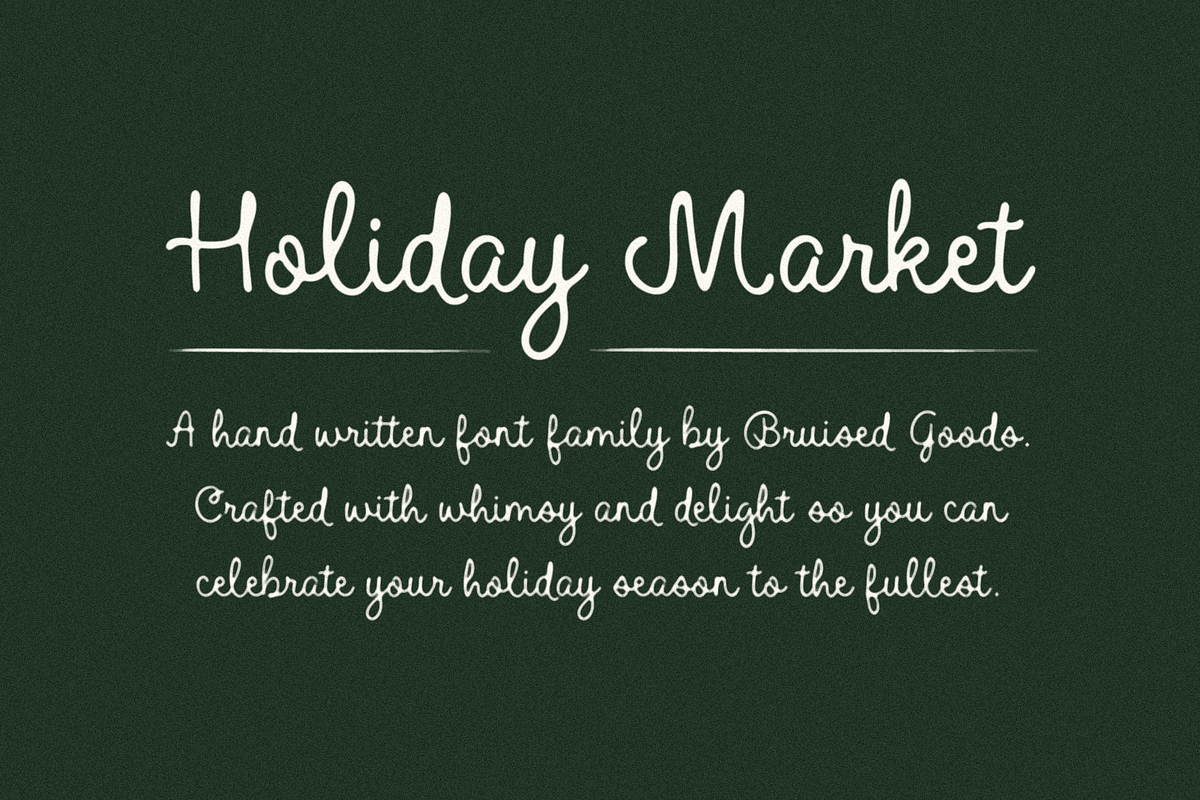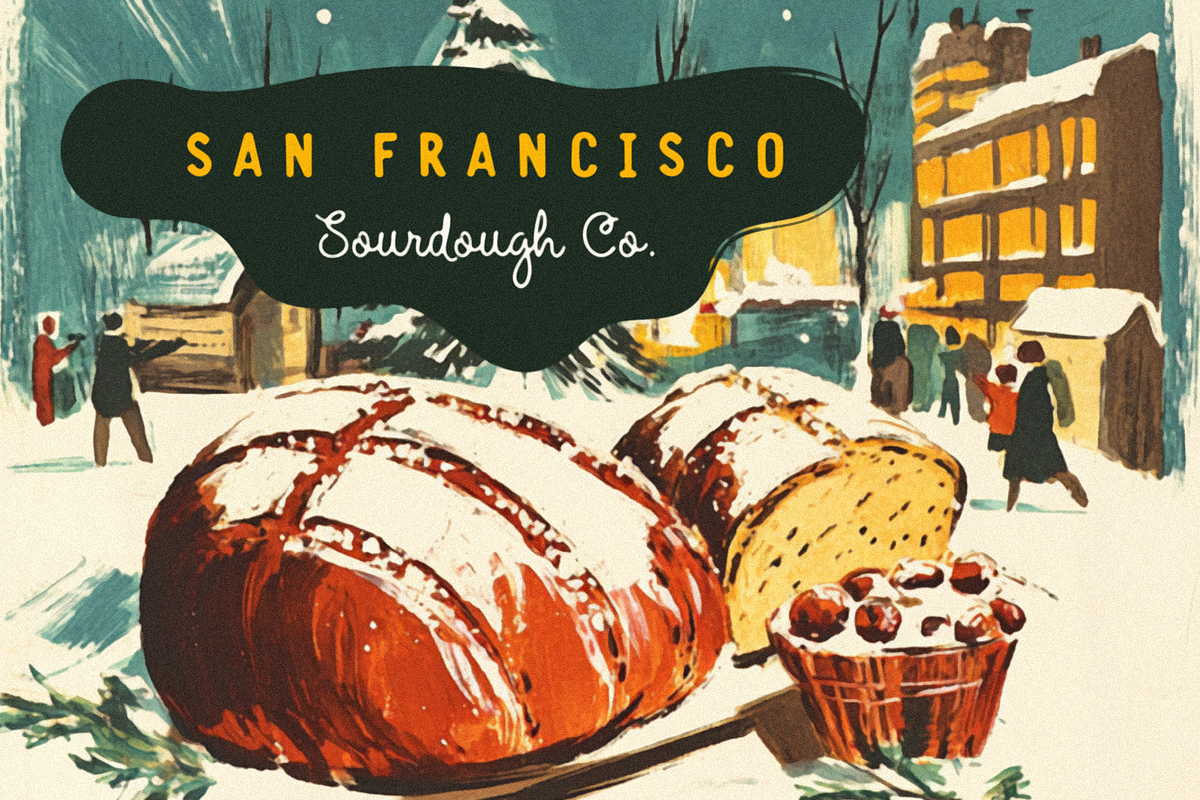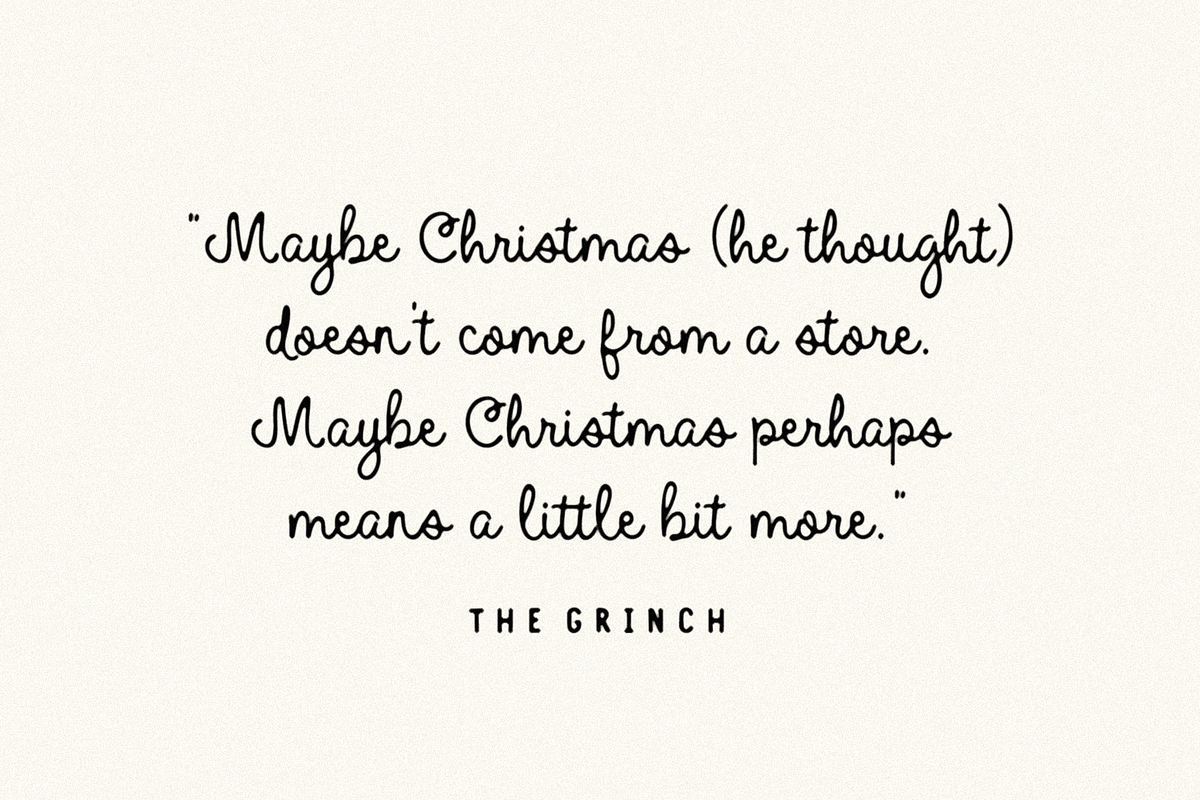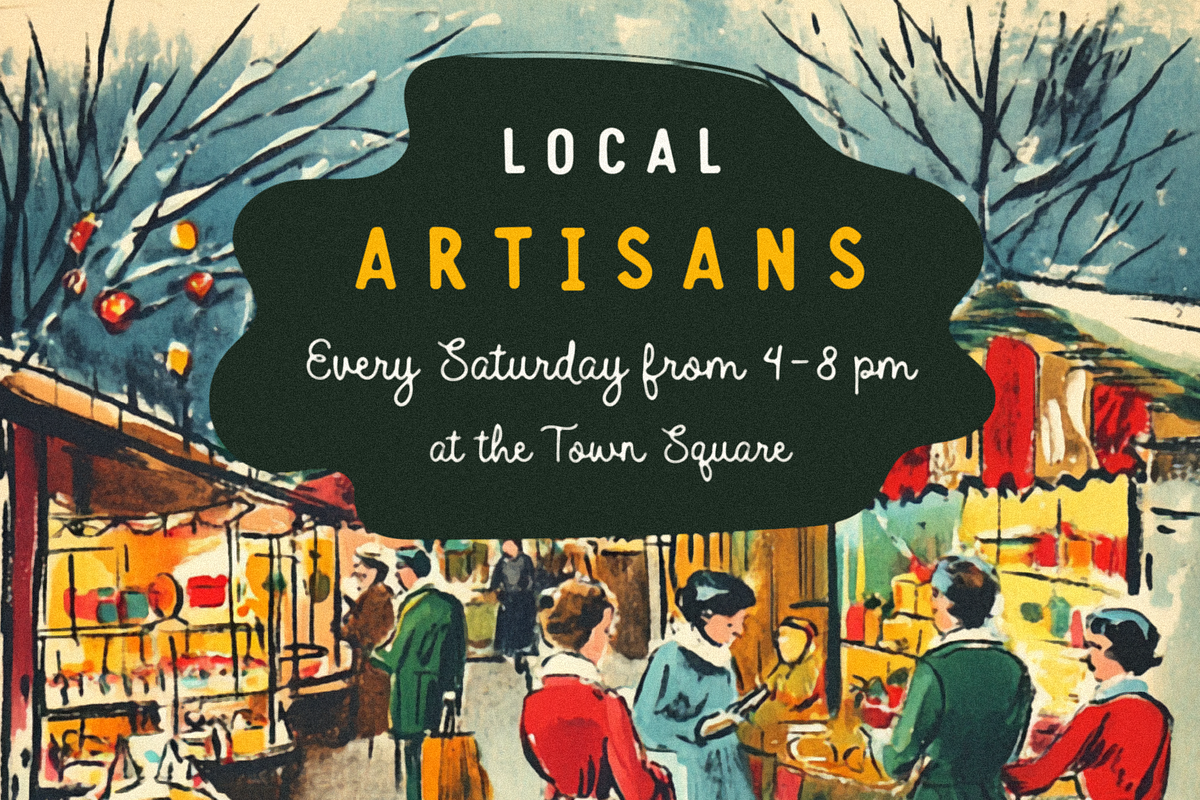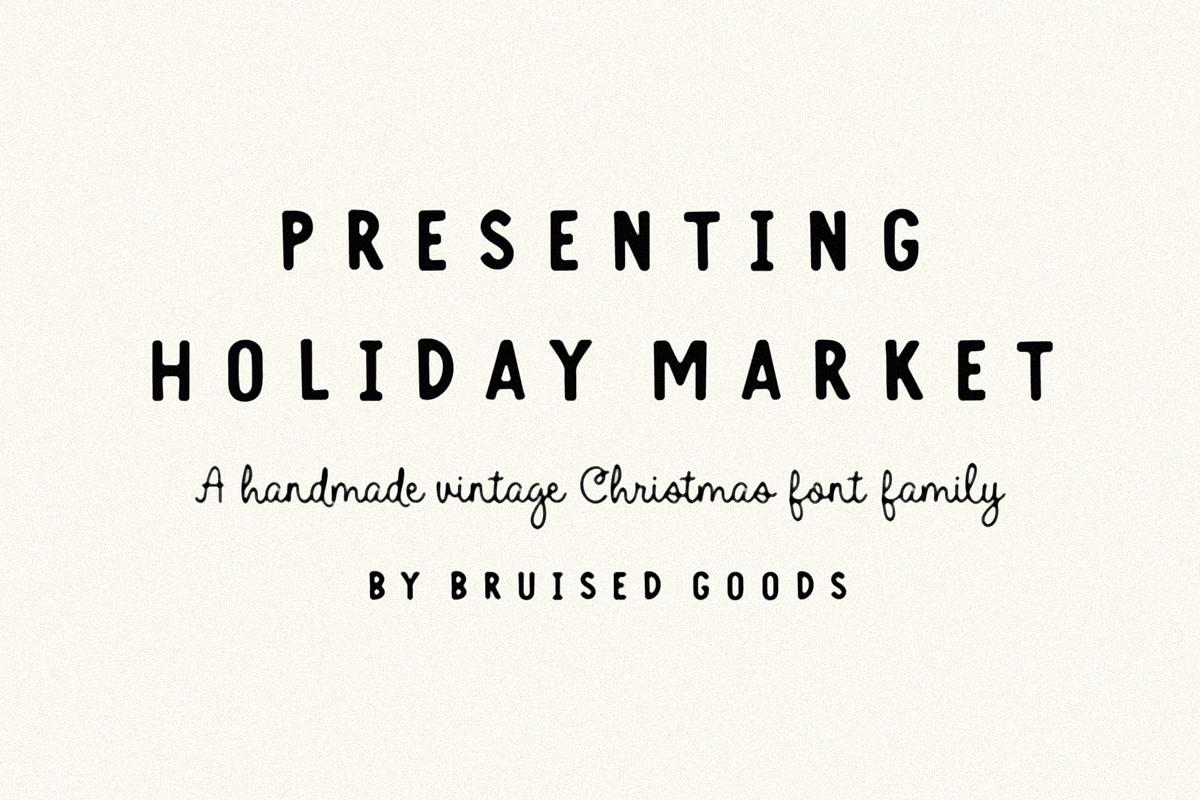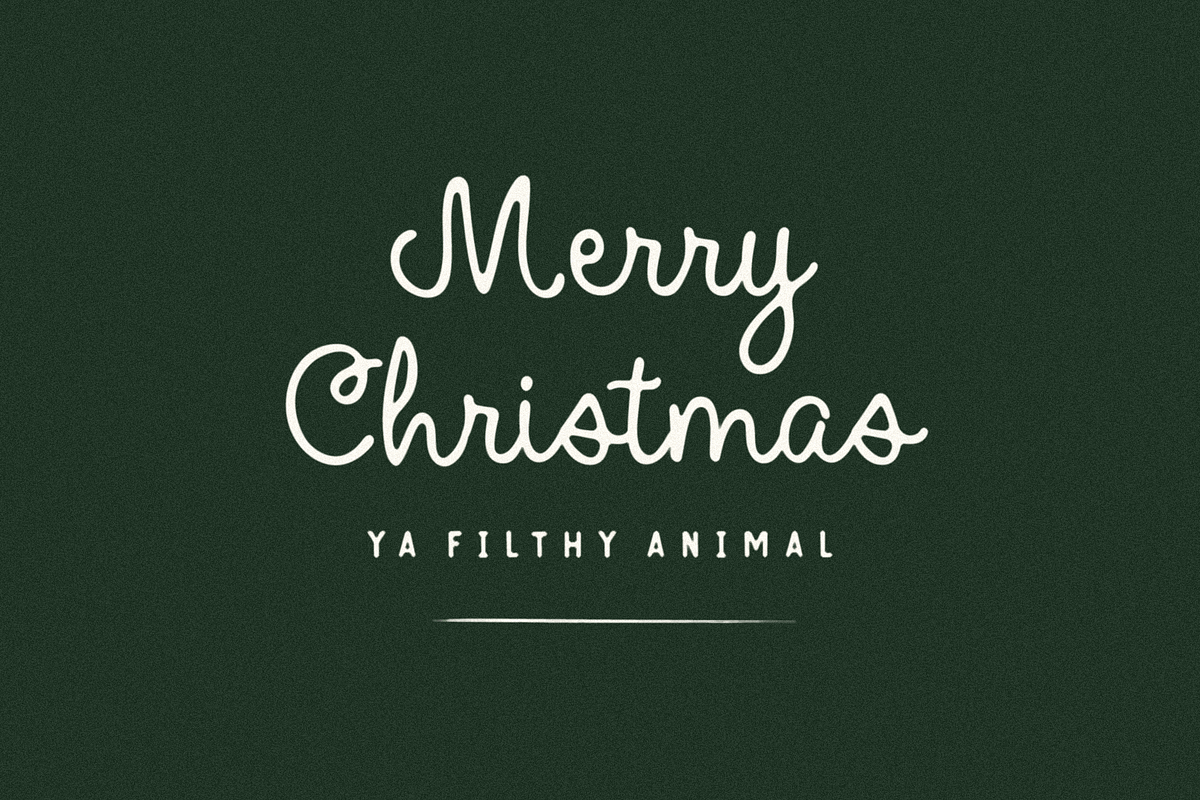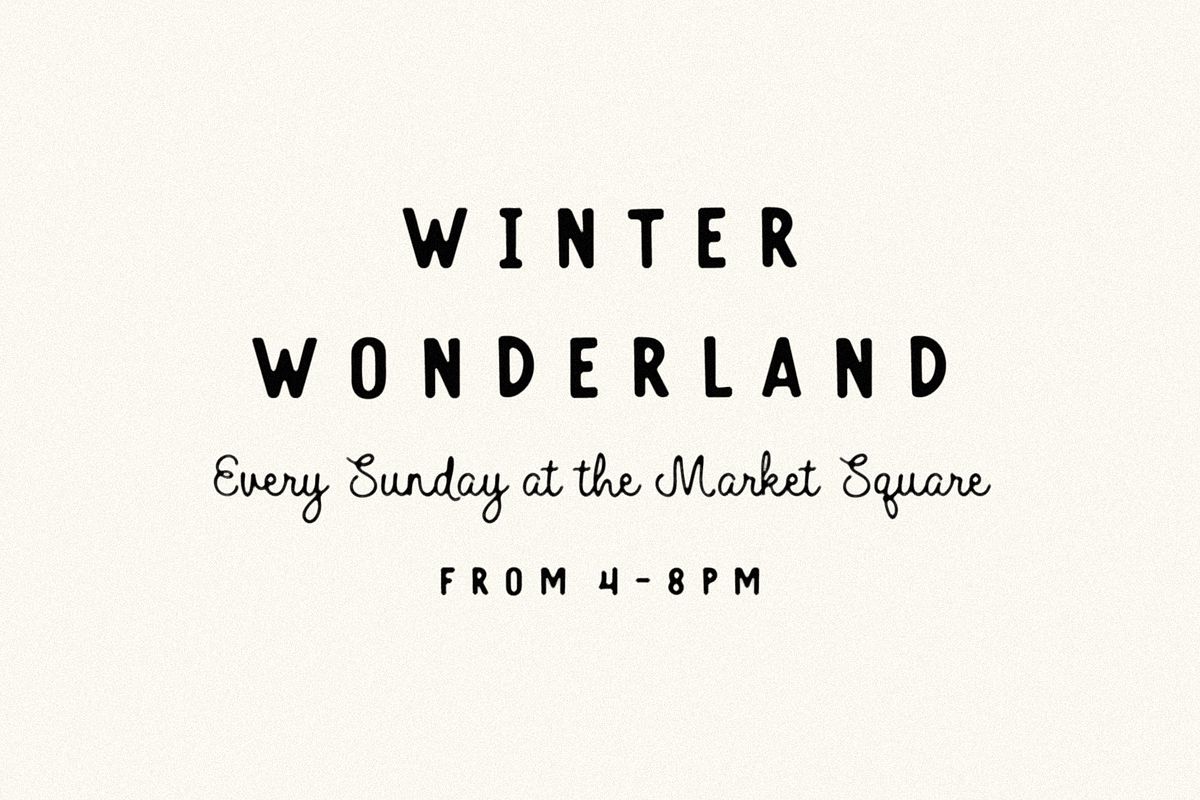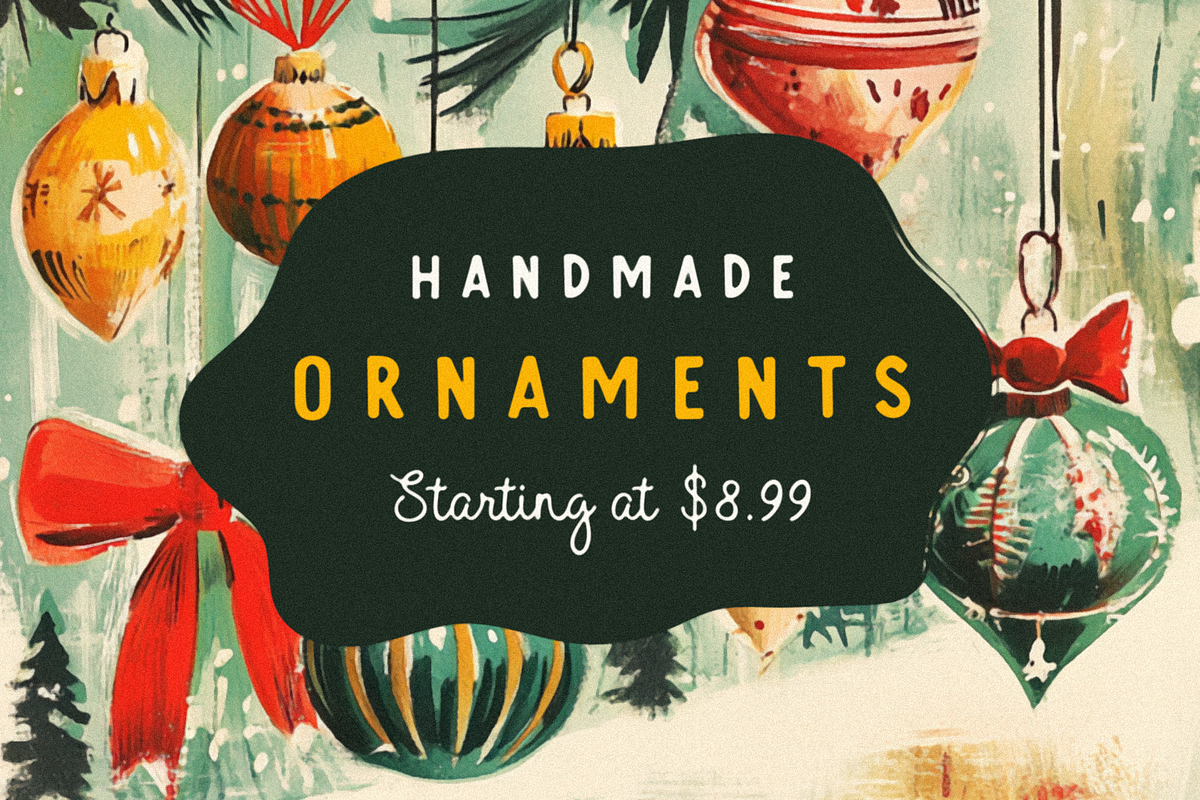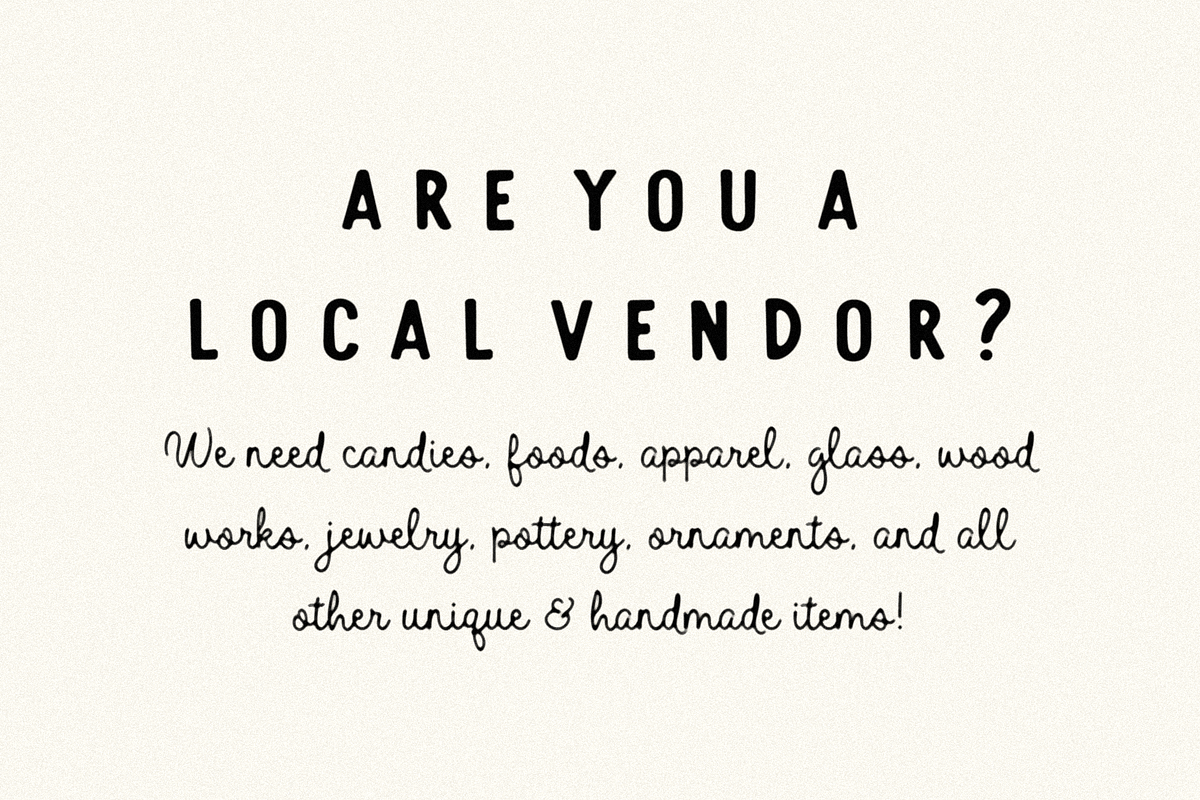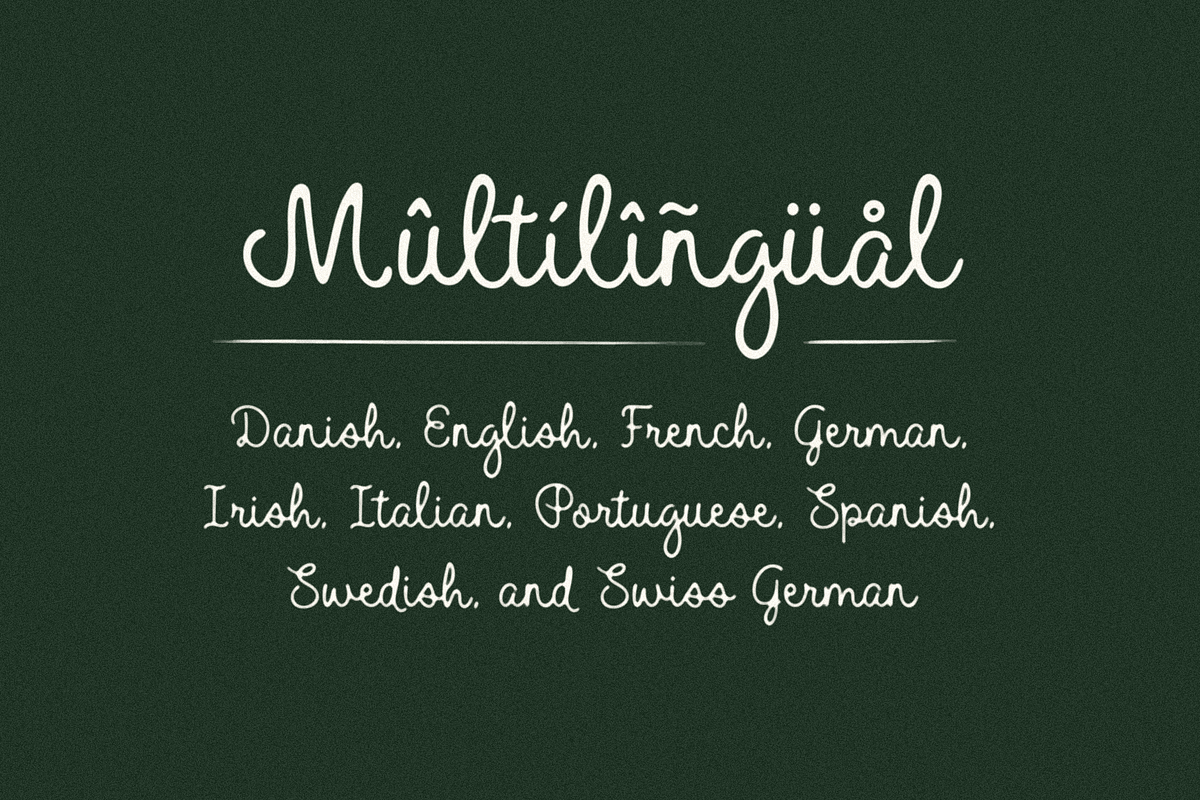
Holiday Market
HOLIDAY MARKET – A vintage Christmas font family, handcrafted by Bruised Goods!
- Uppercase and Lowercase (for script only)
- Letters, Numbers, Currency Symbols, and Standard Punctuation
- 200+ Glyphs Per Font Style
- Language Support: Danish, English, French, German, Irish, Italian, Portuguese, Spanish, Swedish, & Swiss German.